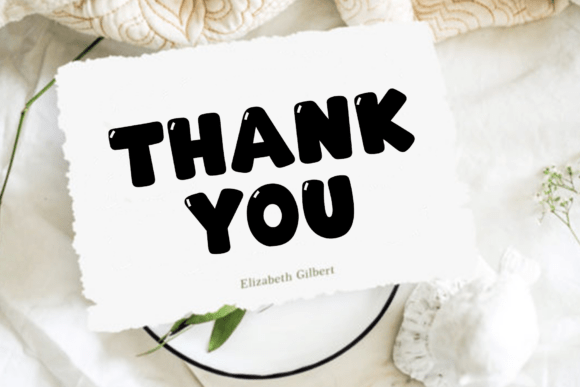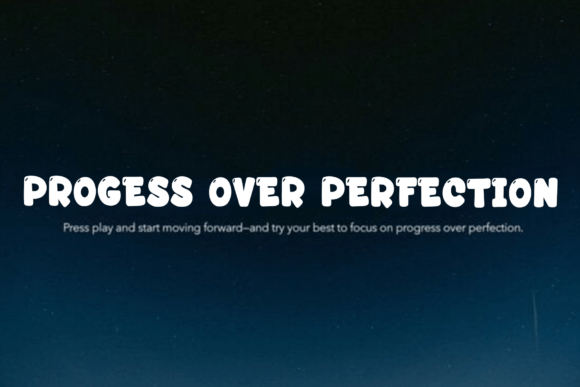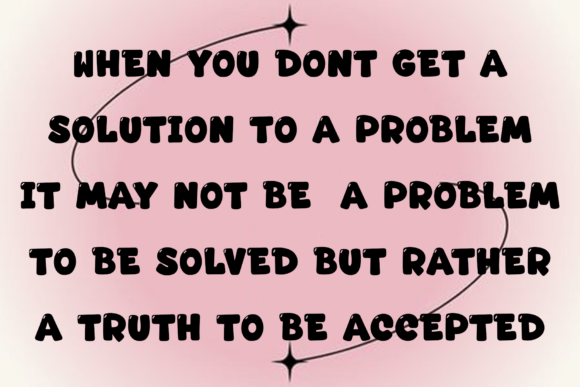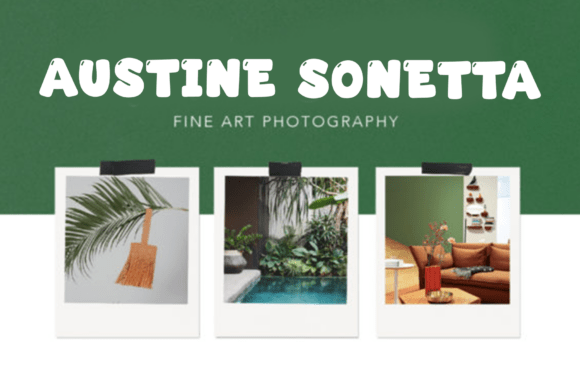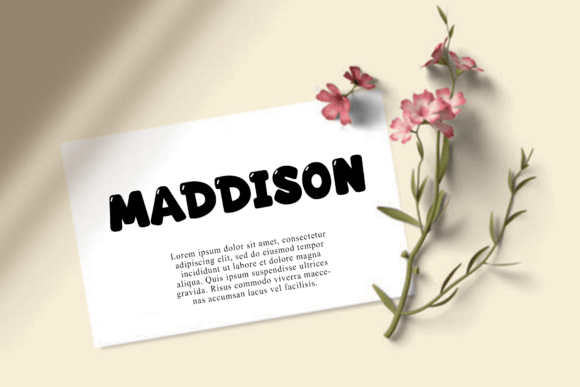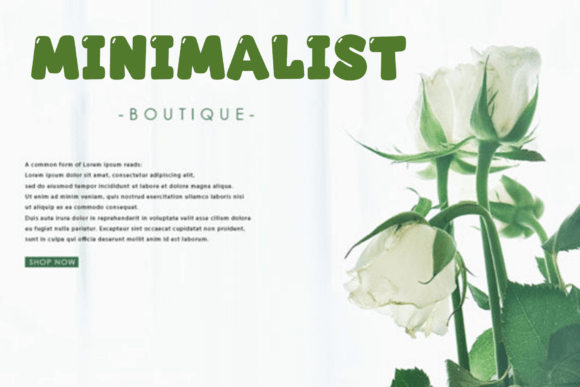
Introducing Chick Garden Font: The Perfect Blend of Casual and Creative
Are you tired of using the same old fonts for your personal projects, invitations, and social media graphics? Look no further than Chick Garden Font, a charming and creative typeface that exudes warmth and friendliness. With its round, playful strokes, this font creates a relaxed and approachable feel that’s perfect for designers and crafters looking to add a unique touch to their work.
The Characteristics of Chick Garden Font
Chick Garden Font is a casual and creative font that’s designed to make your designs stand out. Its key characteristics include:
- Round and playful strokes: The font’s rounded strokes create a soft and friendly feel, making it perfect for designs that require a personal touch.
- Hand-drawn aesthetic: The font’s charming, hand-drawn look adds a fun and unique touch to any design, making it ideal for crafters and designers who want to add a personal element to their work.
Uses for Chick Garden Font
Chick Garden Font is a versatile typeface that can be used for a variety of design projects, including:
- Personal projects: Whether you’re creating a scrapbook, a photo album, or a personal blog, Chick Garden Font is the perfect choice for adding a personal touch.
- Invitations: The font’s friendly and approachable feel makes it ideal for creating invitations for parties, weddings, and other special occasions.
- Social media graphics: Chick Garden Font is perfect for creating social media graphics, such as Facebook posts, Instagram stories, and Twitter headers, that require a personal and creative touch.
Why Choose Chick Garden Font?
With so many fonts available, why choose Chick Garden Font? Here are just a few reasons:
- Unique and creative: Chick Garden Font offers a unique and creative look that’s sure to make your designs stand out.
Tips for Using Chick Garden Font
Here are a few tips for getting the most out of Chick Garden Font:
- Pair it with other fonts: Chick Garden Font pairs well with other fonts, so don’t be afraid to experiment with different combinations.
- Use it for headlines and titles: The font’s bold and playful strokes make it perfect for headlines and titles.
- Experiment with colors and textures: Chick Garden Font looks great in a variety of colors and textures, so don’t be afraid to get creative.
Chick Garden Font is a charming and creative typeface that’s perfect for designers and crafters looking to add a unique touch to their work. With its round, playful strokes and hand-drawn aesthetic, this font exudes warmth and friendliness, making it ideal for personal projects, invitations, and social media graphics. Whether you’re a seasoned designer or just starting out, Chick Garden Font is a great choice for anyone looking to add a little creativity and personality to their designs.